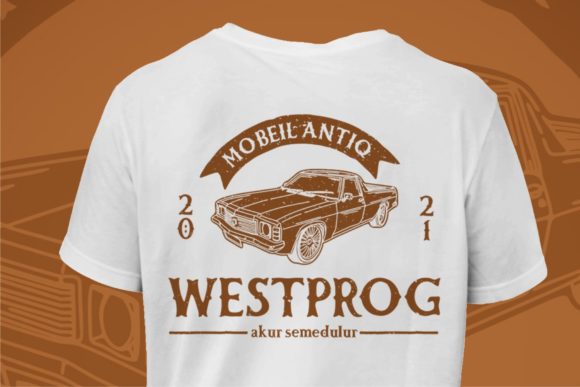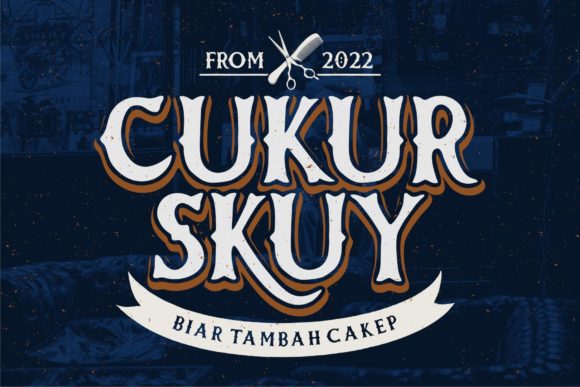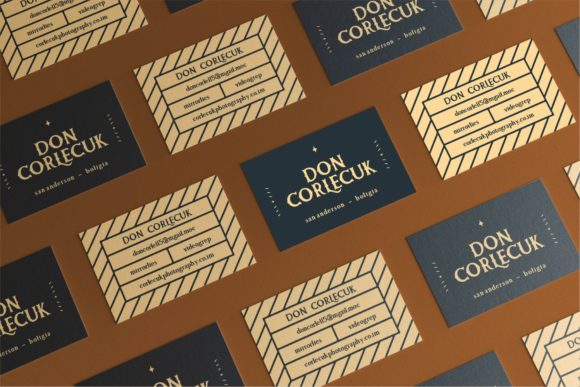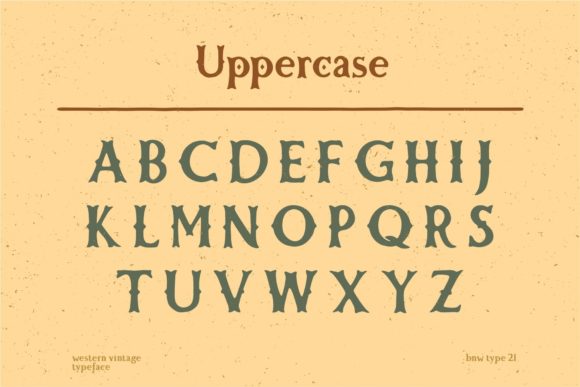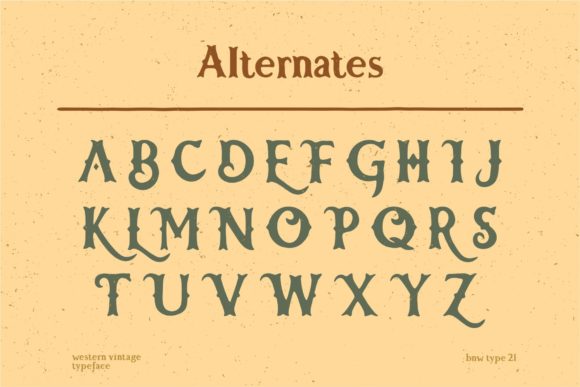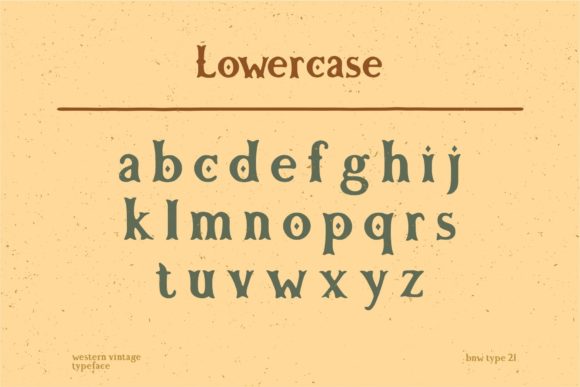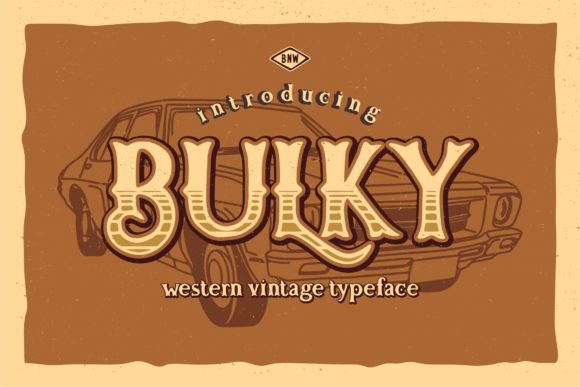
The Perfect Font for Your Western-Inspired Designs: A Deep Dive into Bulky
Have you ever been in the middle of a design project, and suddenly, you’re stuck on finding the perfect font? I recall a recent experience where I was working on a vintage-themed homeware design project, and I just couldn’t find a font that captured the essence of the cowboy era. That’s when I stumbled upon Bulky, a western and vintage-looking slab serif font that instantly became my go-to. In this article, I’ll share my experience with Bulky, its features, and how to make the most of it in your designs.
My Love Affair with Bulky
Bulky is more than just a font; it’s a statement piece for your designs. Here’s what I love about it:
• ✨ Unique, handcrafted look: Each character in Bulky has a distinct, handcrafted feel that adds a touch of personality to your designs.
• ✅ Western and vintage vibe: The font’s slab serif design and rugged feel instantly evoke the spirit of the American West.
• 💯 Versatility: Bulky is perfect for a wide range of design projects, from homeware designs and flyers to banners and book covers.
While Bulky is an excellent font, it’s not without its quirks:
• 🤔 Limited use in body text: Due to its bold and chunky design, Bulky might not be the best choice for lengthy body text. It’s better suited for headings and titles.
• ⚠️ Glyph compatibility: Some glyphs or special characters might not work seamlessly across all platforms or software. Always test your design before finalizing it.
The Backstory of Bulky
Bulky was inspired by the rugged, adventurous spirit of the American West. Its designer aimed to capture the essence of vintage cowboy posters, wanted signs, and classic western movies. The result is a font that’s both bold and charming, perfect for designs that need a touch of nostalgia and ruggedness.
What type of designs is Bulky best suited for? Bulky is perfect for western-inspired designs, such as homeware designs, flyers, banners, and book covers.
Can I use Bulky for body text? While possible, Bulky is better suited for headings and titles due to its bold and chunky design.
Does Bulky support OpenType features? Yes, Bulky supports OpenType features like ligatures and stylistic alternates, which can add more flair to your text.